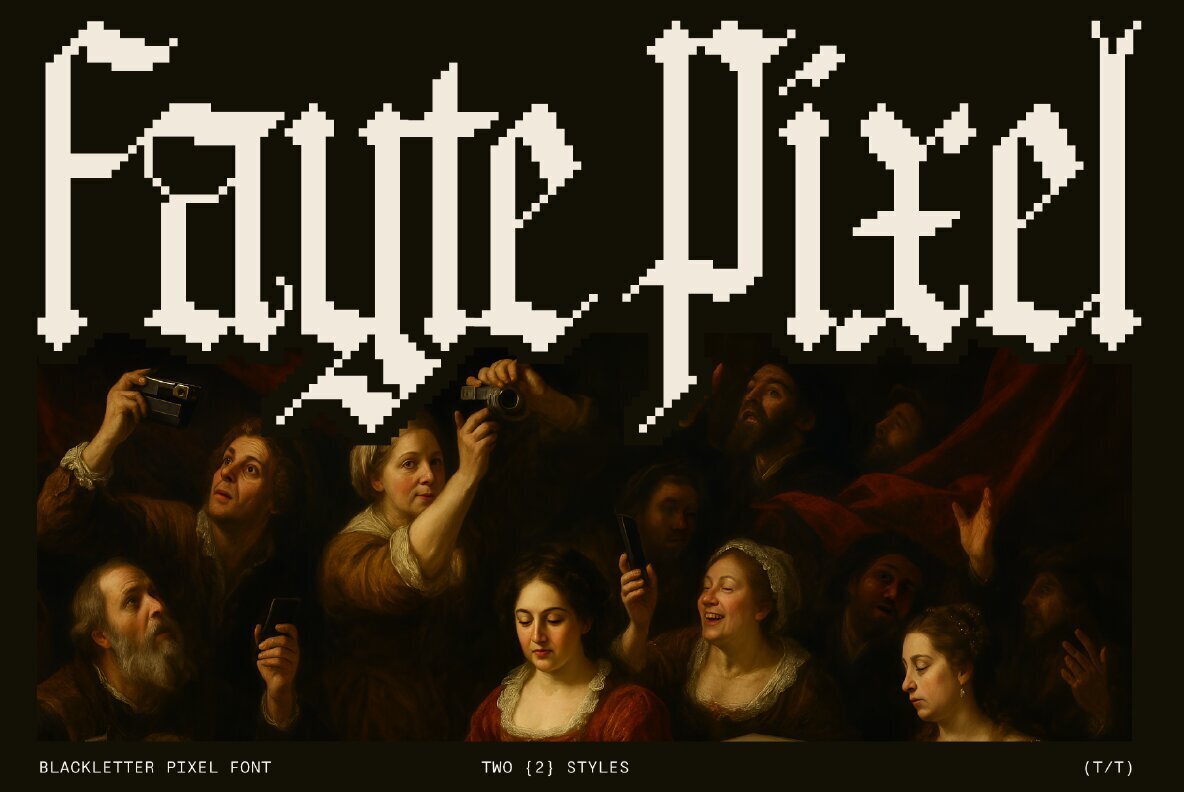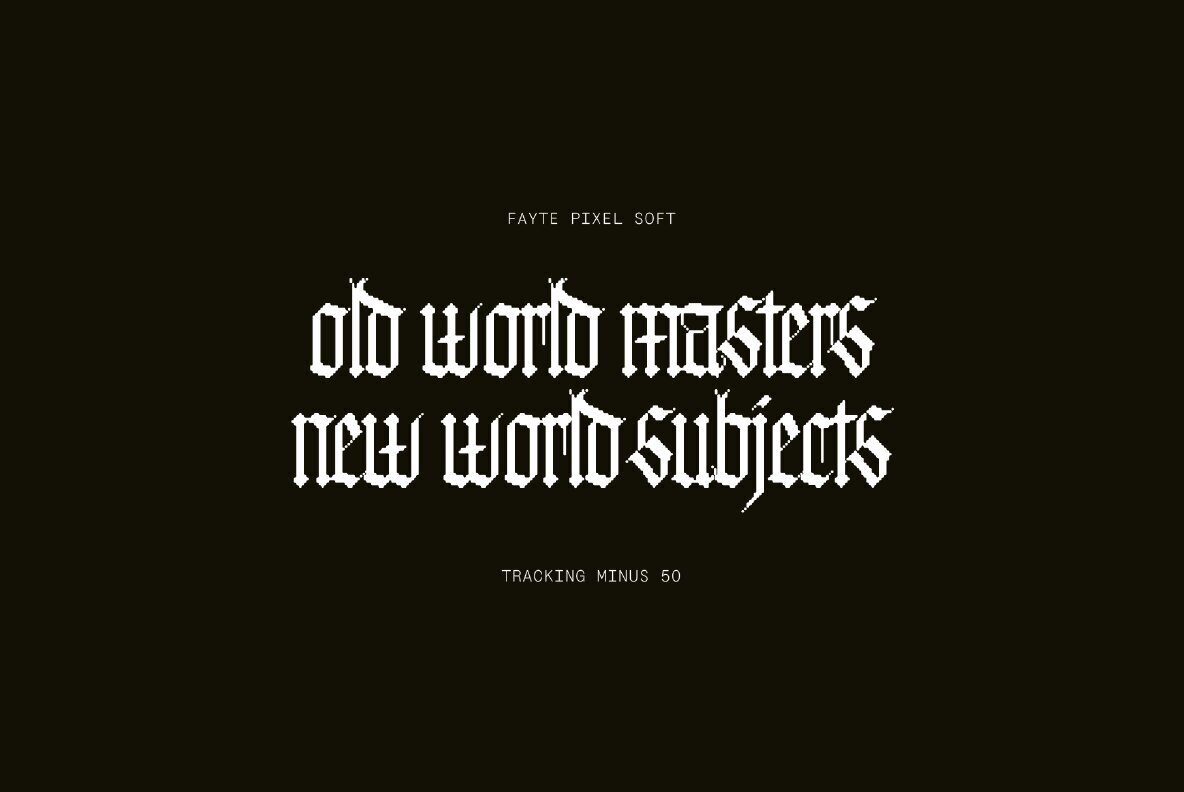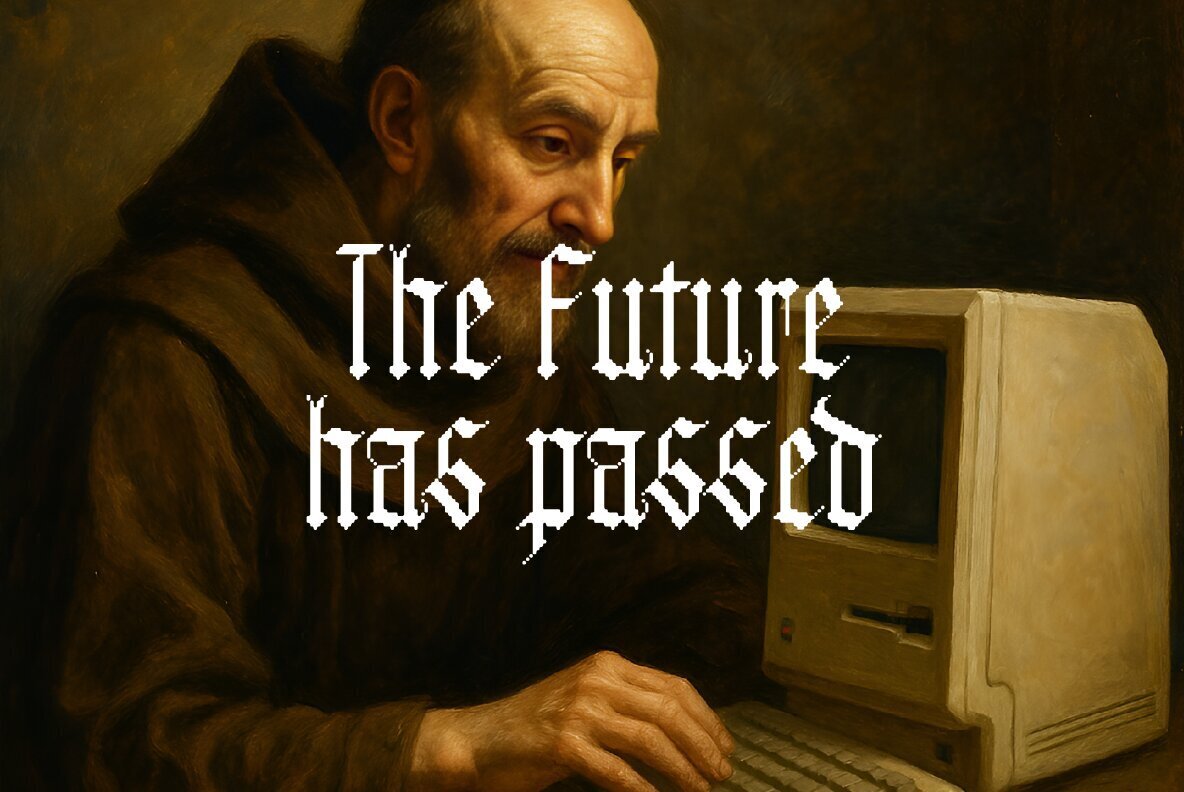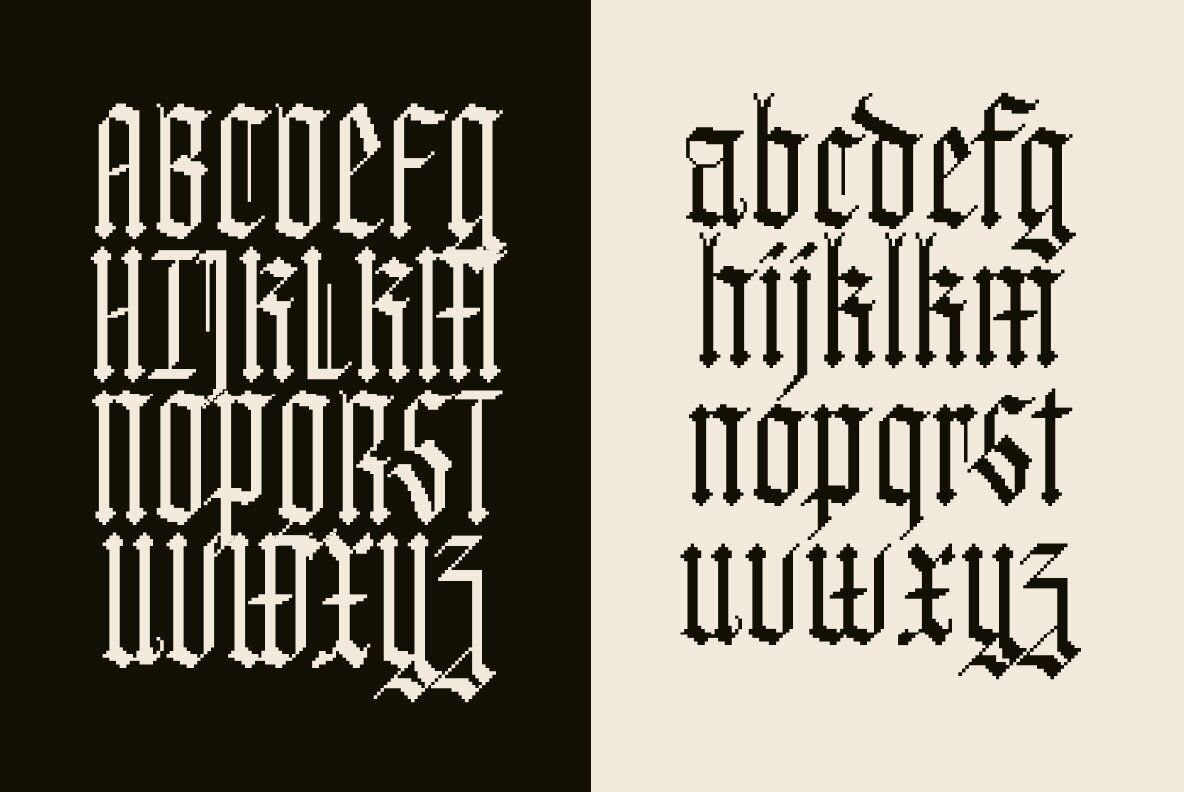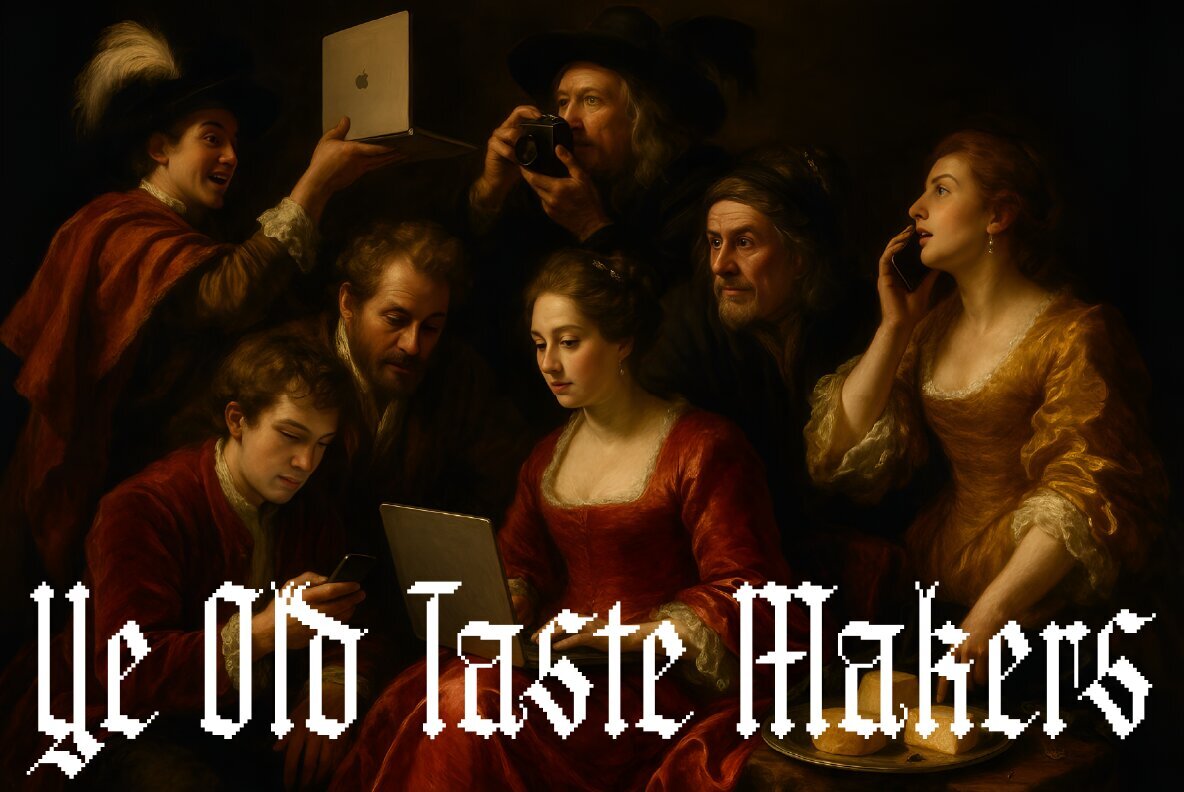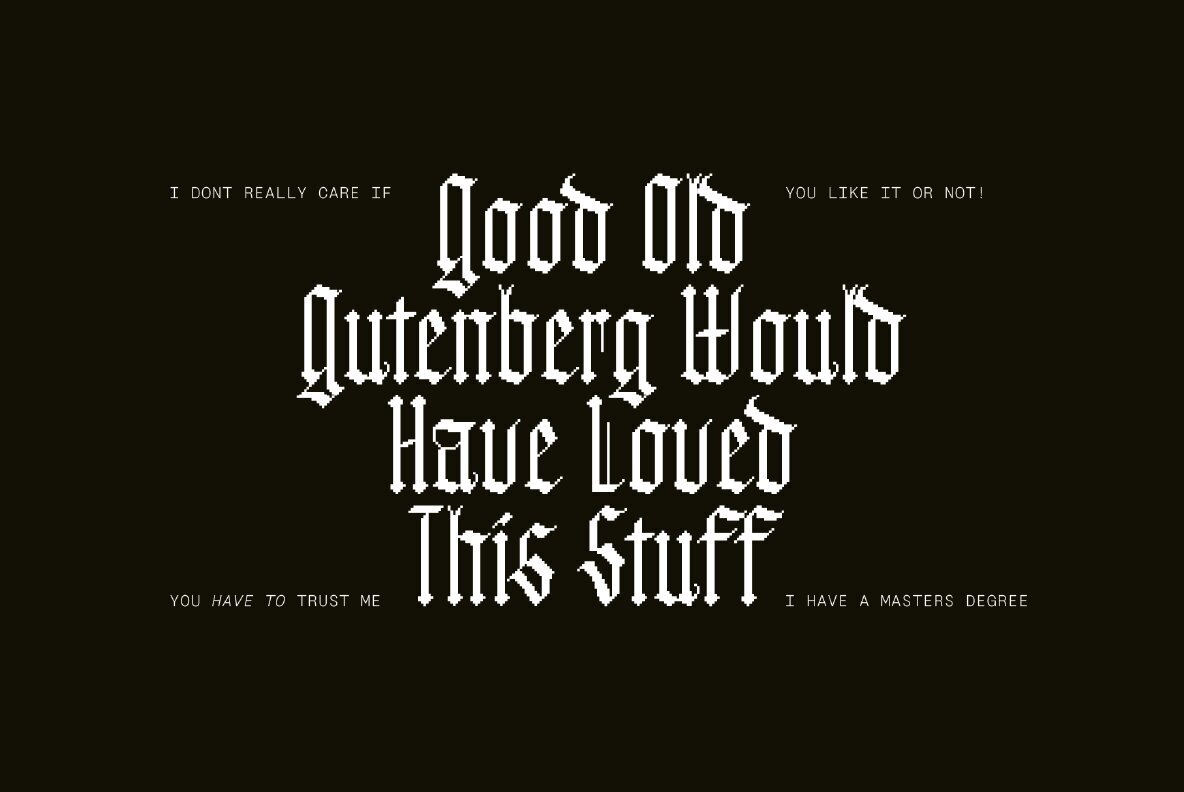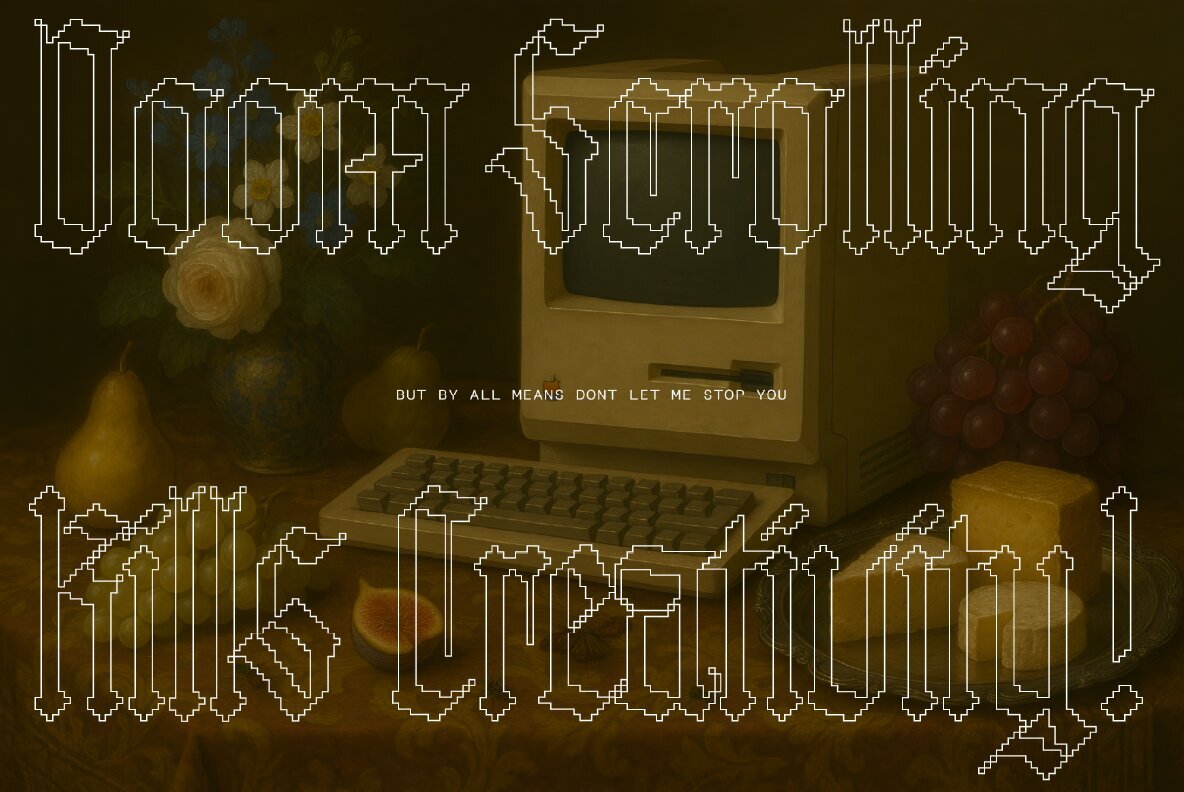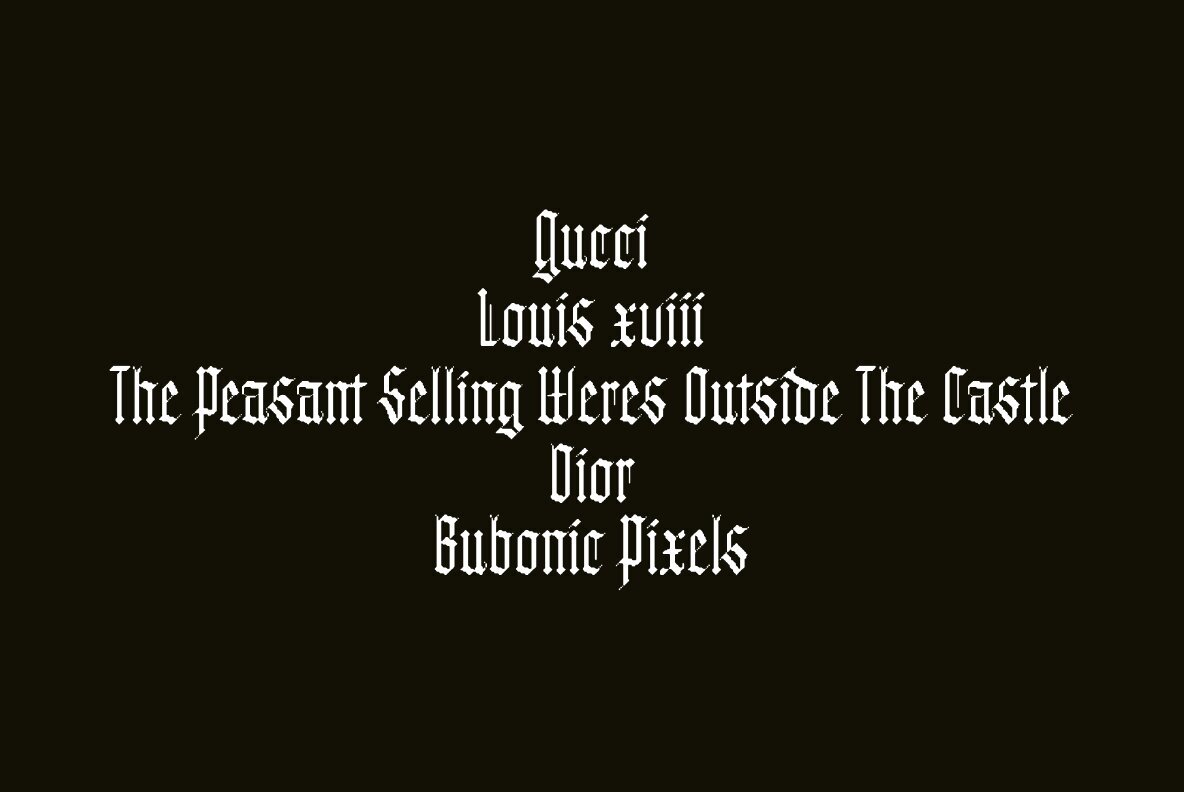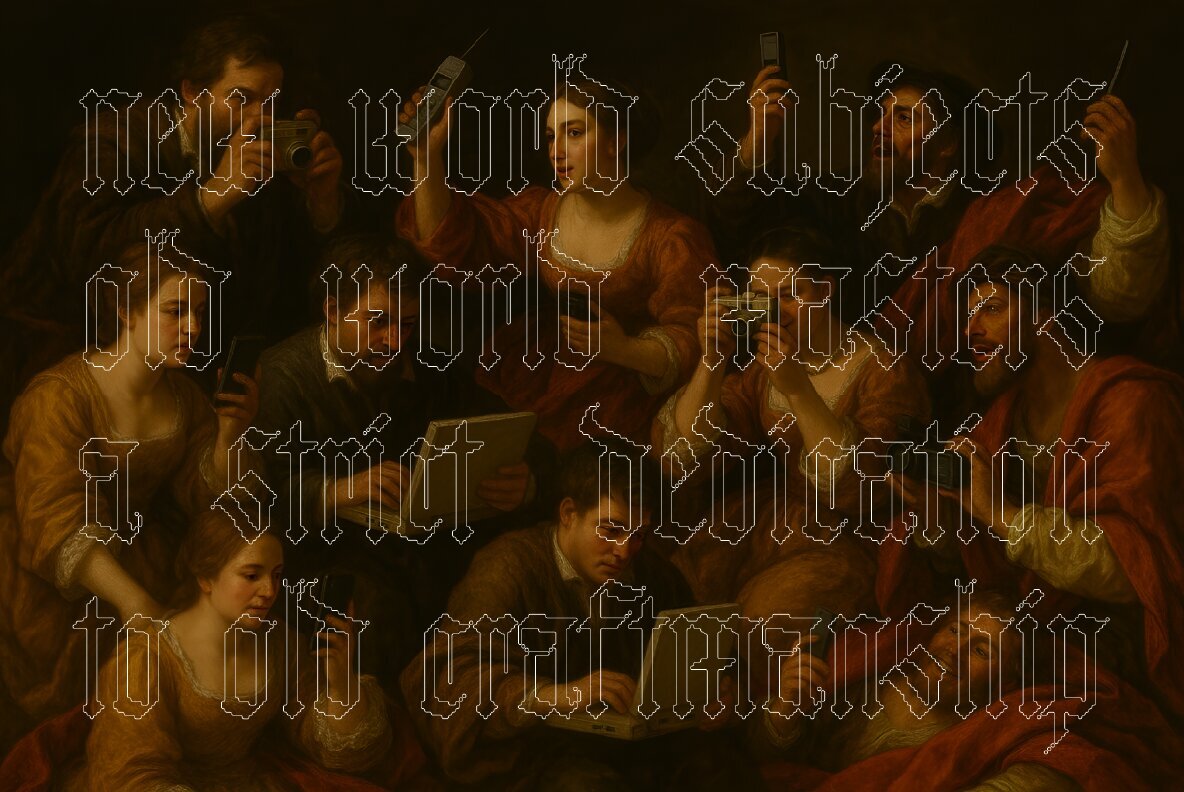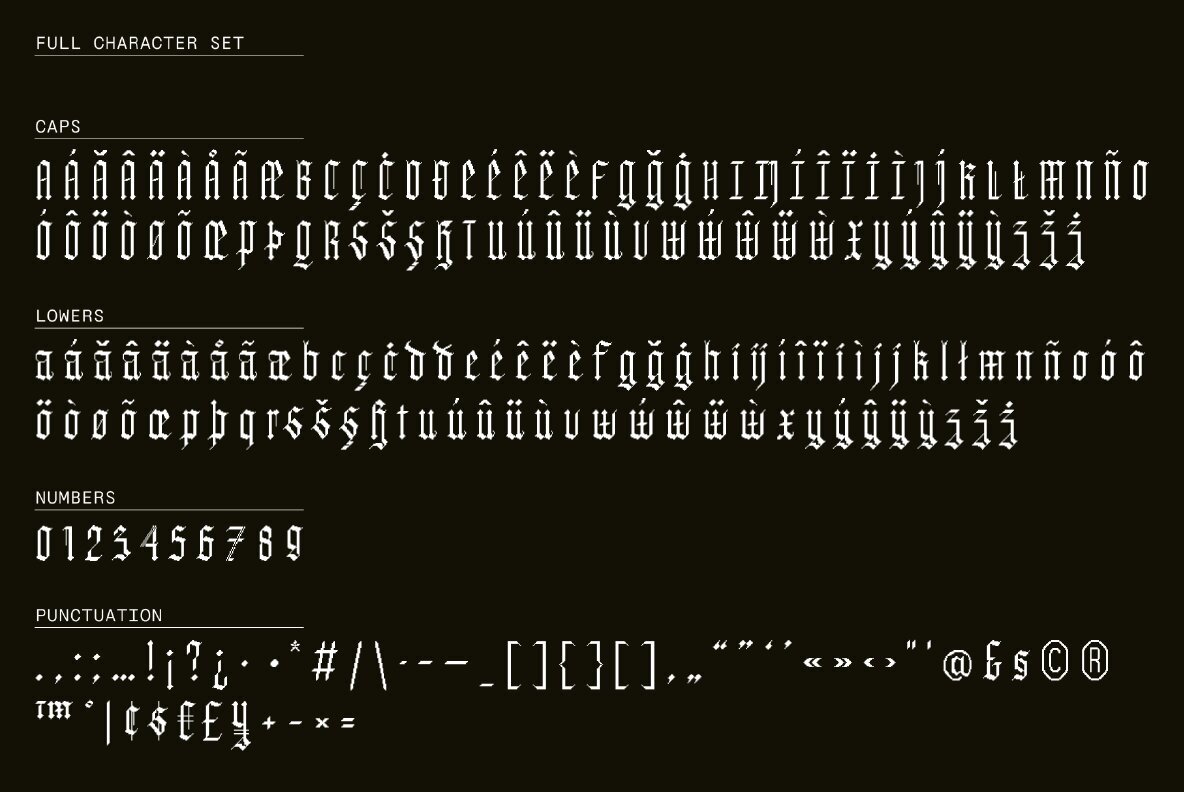
Fayte Pixel Font
Fayte Pixel Hard
Fayte Pixel Soft
Meet Fayte Pixel, a unique fusion of blackletter elegance and pixelated charm. Available in two distinct styles: Hard, reminiscent of a knight’s sharp blade, and Soft, as smooth as vellum. Each glyph in this typeface echoes the craftsmanship of ancient scribes and the liveliness of market stall banners, all wrapped in a retro block aesthetic. Perfect for proclamations, scrolls, and digital designs, Fayte Pixel stands as a bridge between modern pixel art and timeless calligraphy. Embrace this typeface to add a touch of the past to your contemporary projects.Fayte Pixel Typeface